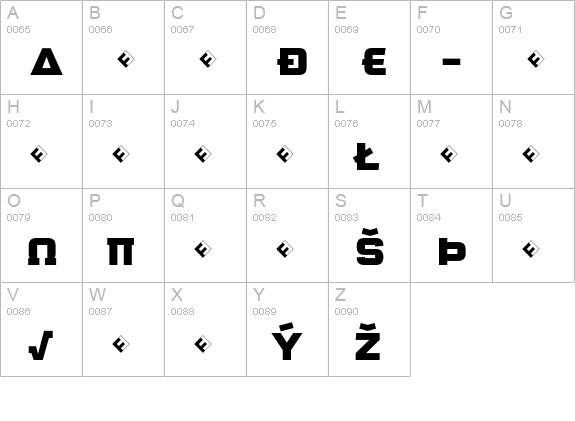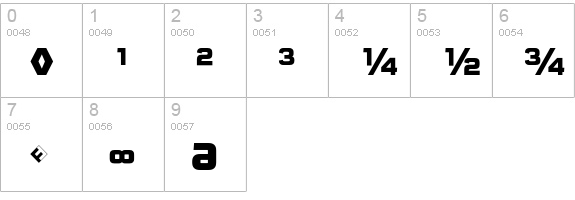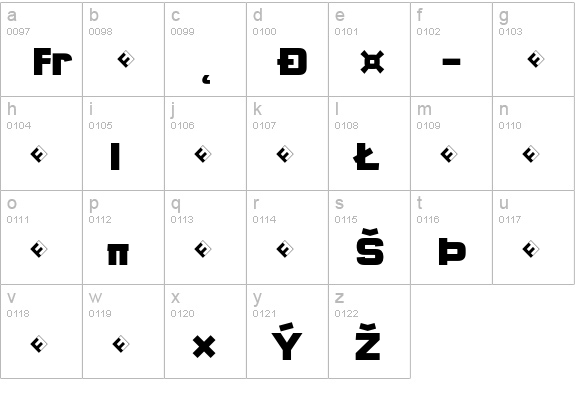
QTypeSquare-BlackMajusclesEp is a stunning font that exudes power and strength. Its bold, square-shaped letters command attention and make a bold statement. This font is perfect for designs that require a strong and impactful typography. The BlackMajusclesEp variation of QTypeSquare-BlackMajusclesEp takes the original font to another level. With its enhanced thickness and muscular letterforms, it adds an extra layer of intensity and drama to any design project. What makes QTypeSquare-BlackMajusclesEp even more appealing is that it is available for free. Yes, you read that right! This incredible font can be freely downloaded at FontsMarket.com. You can easily add this font to your collection without spending a dime. Whether you're working on a poster, a logo, a website, or any other design project, QTypeSquare-BlackMajusclesEp will make a bold and unforgettable impression. Its strong presence will captivate your audience and leave a lasting impact. So don't miss out on this amazing opportunity to enhance your designs with QTypeSquare-BlackMajusclesEp. Visit FontsMarket.com today and download this powerful font for free.